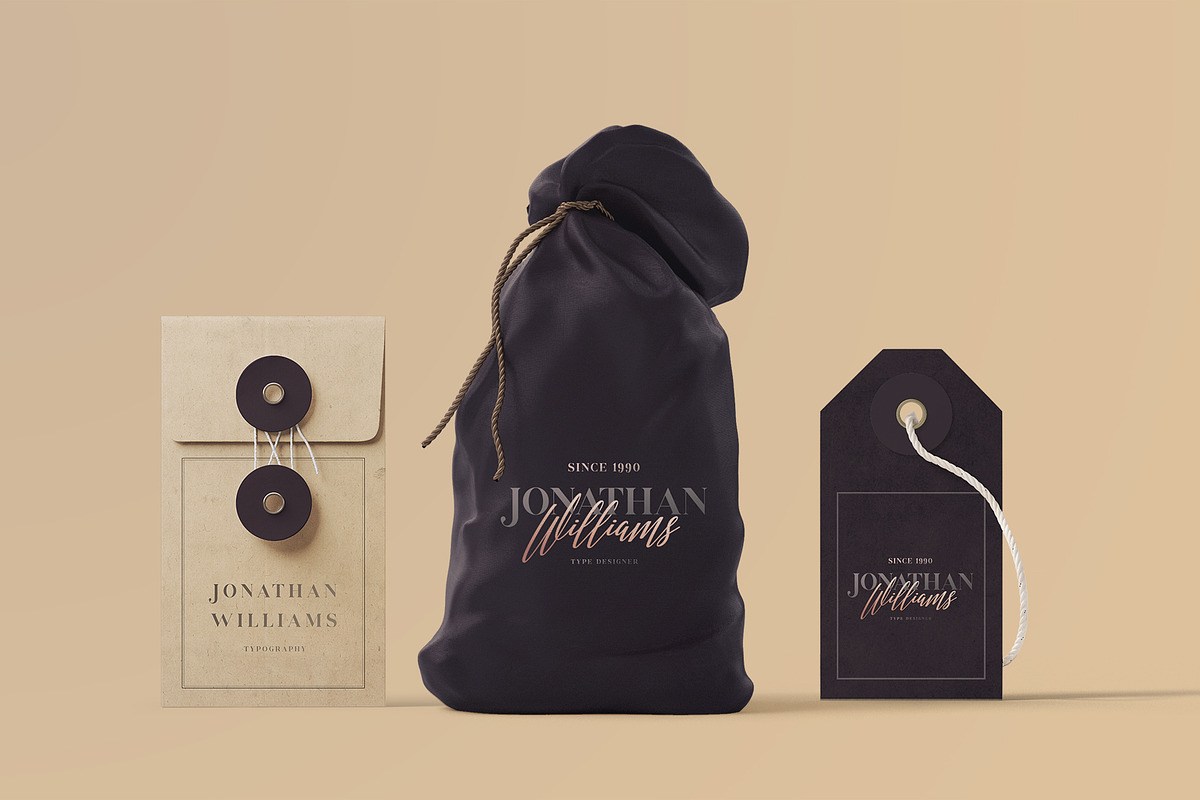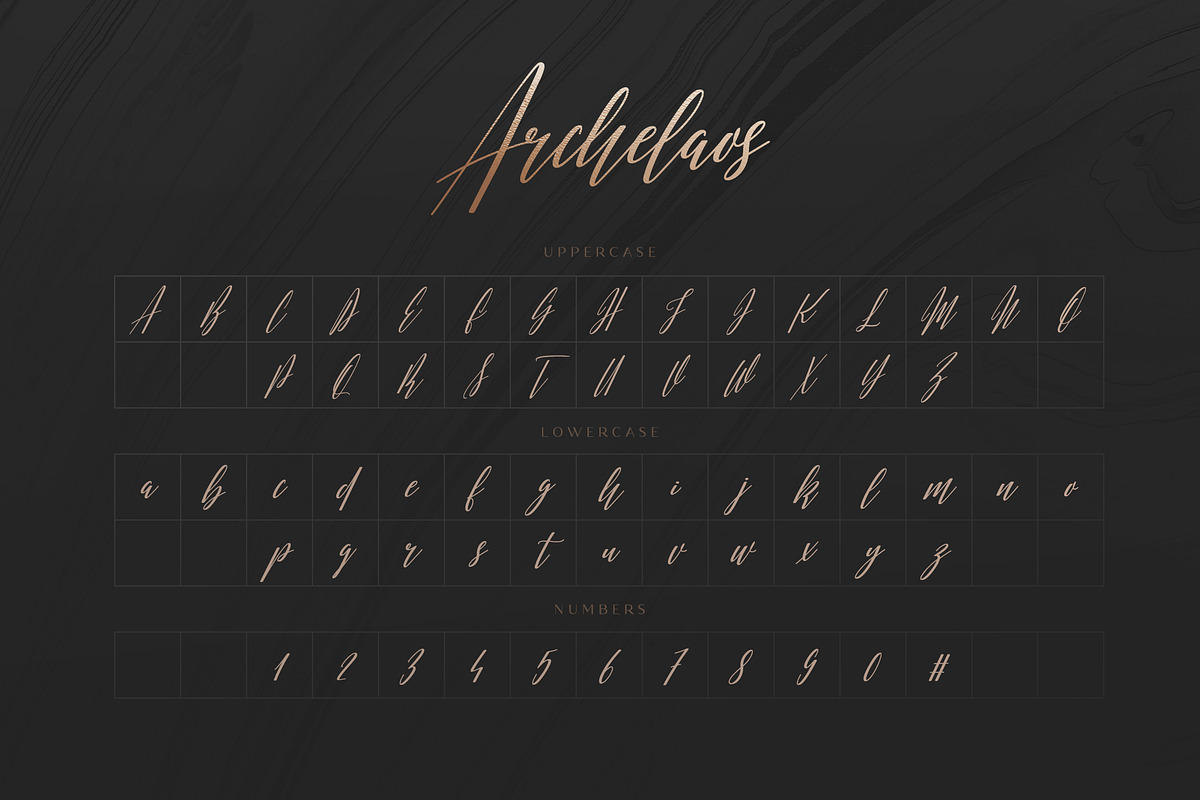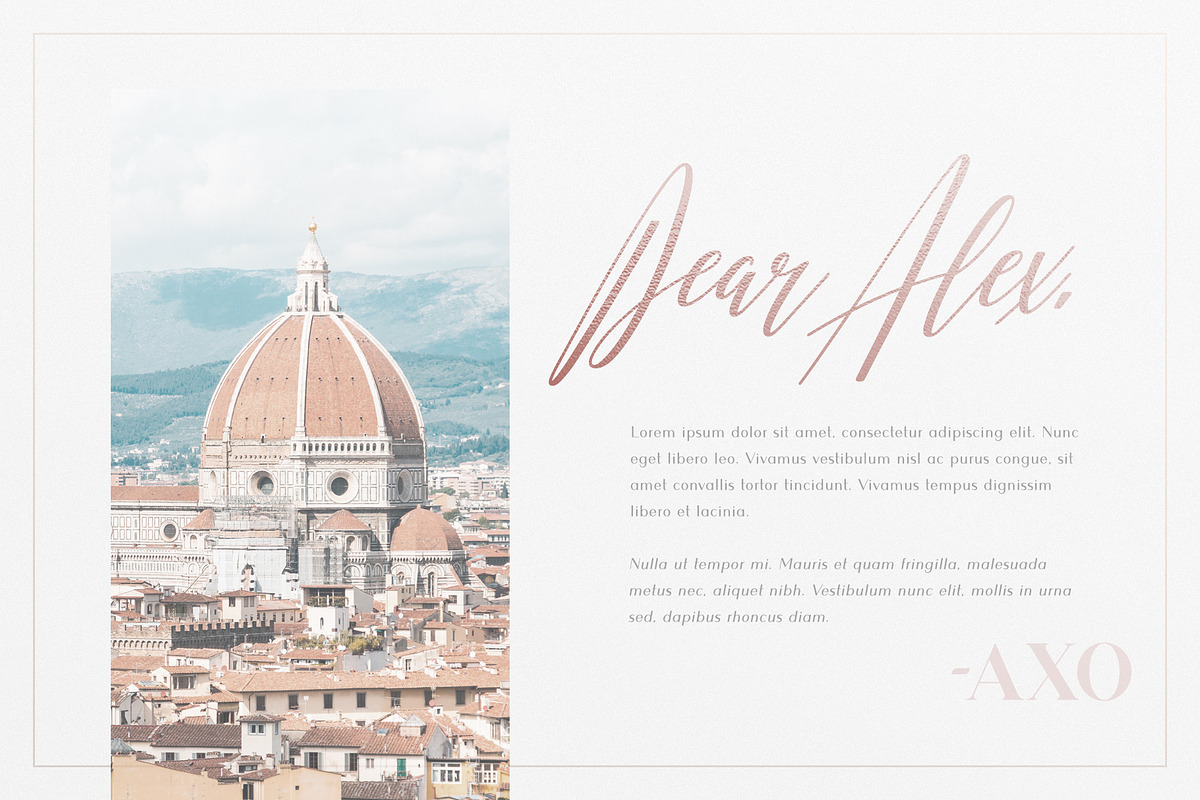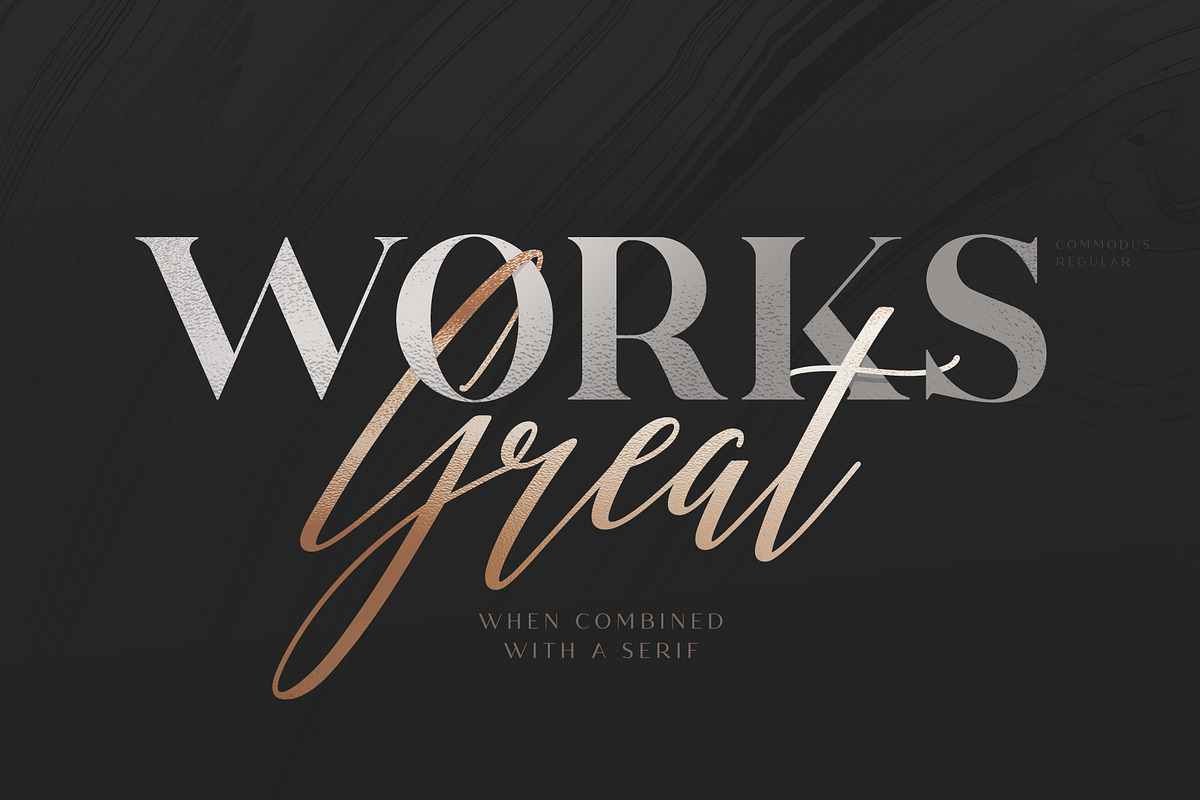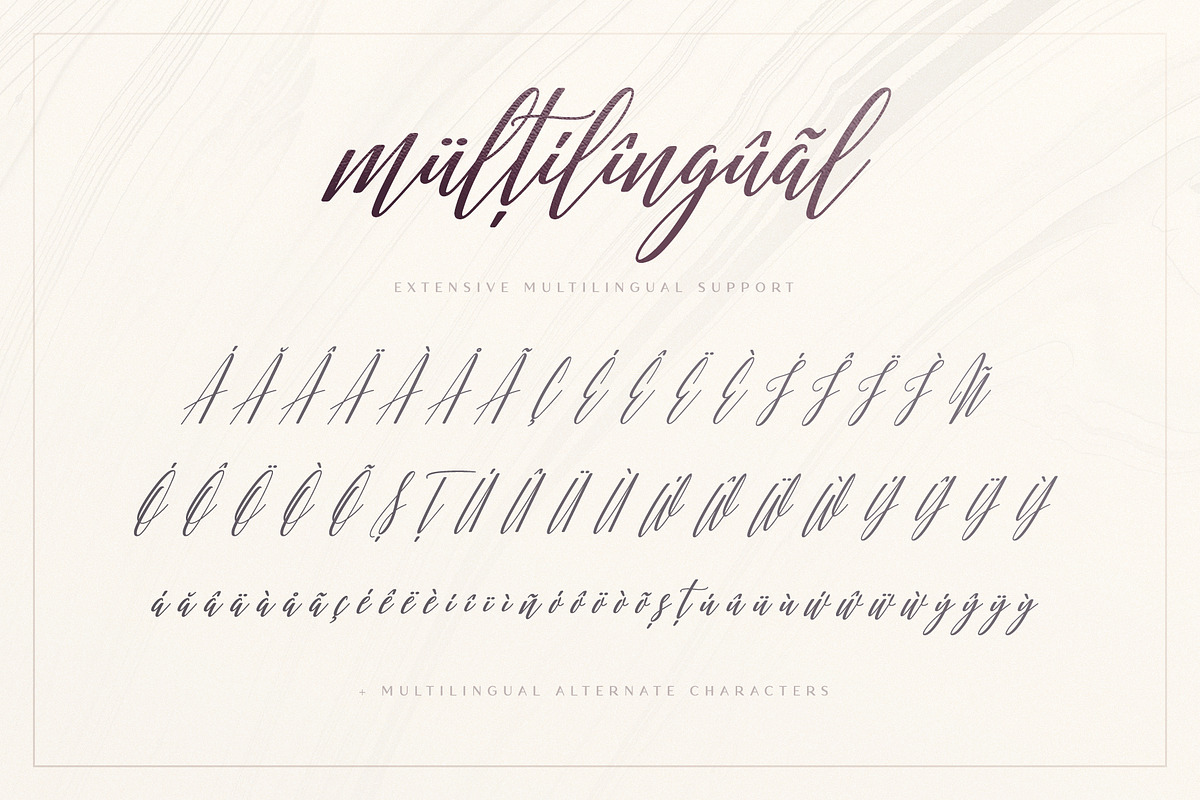
Archelaos - Elegant Script Font
Archelaos is an elegant script typeface featuring extensive multilingual support. The font looks great when paired with serif or sans-serif fonts and can be used as a signature.
Contextual alternates